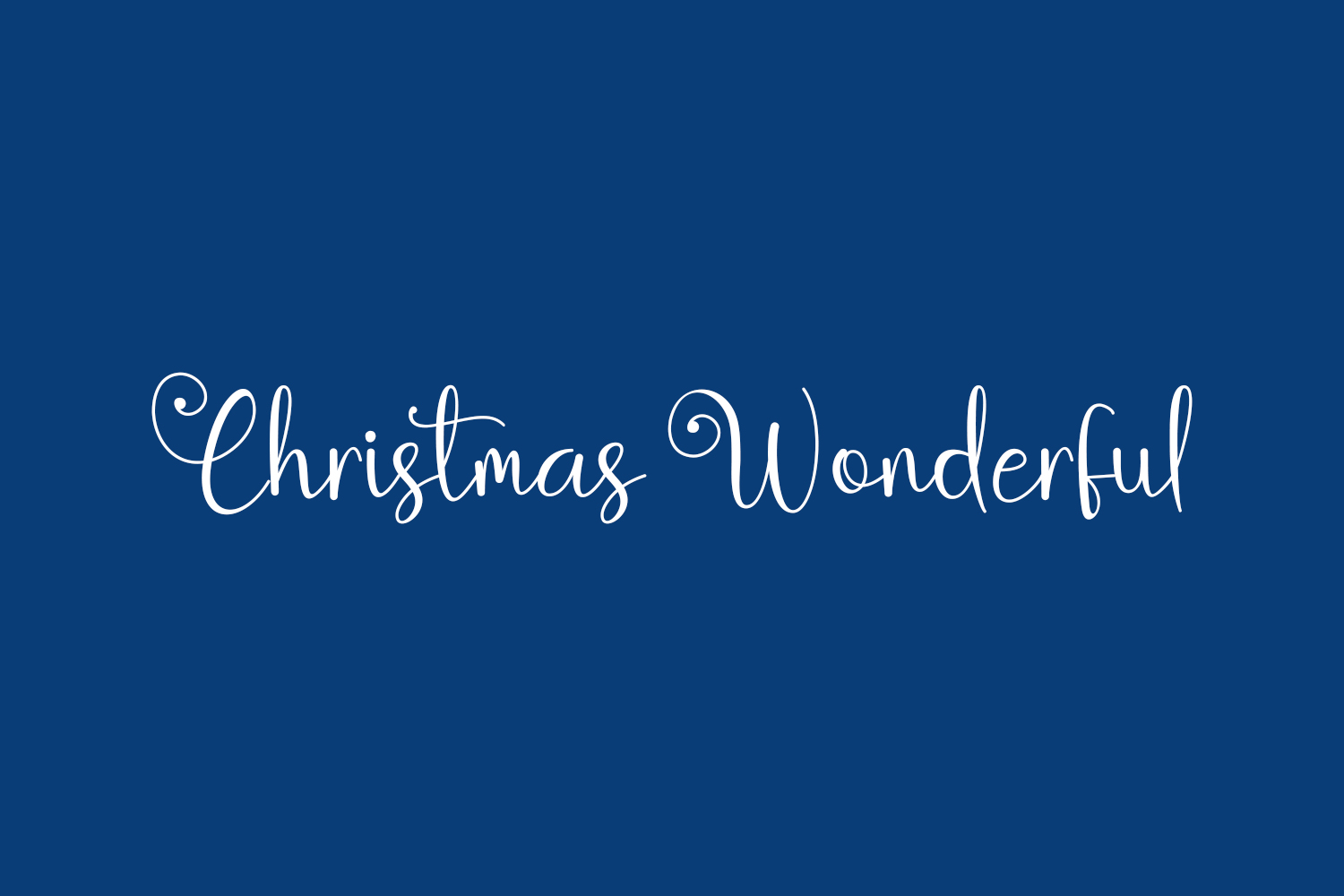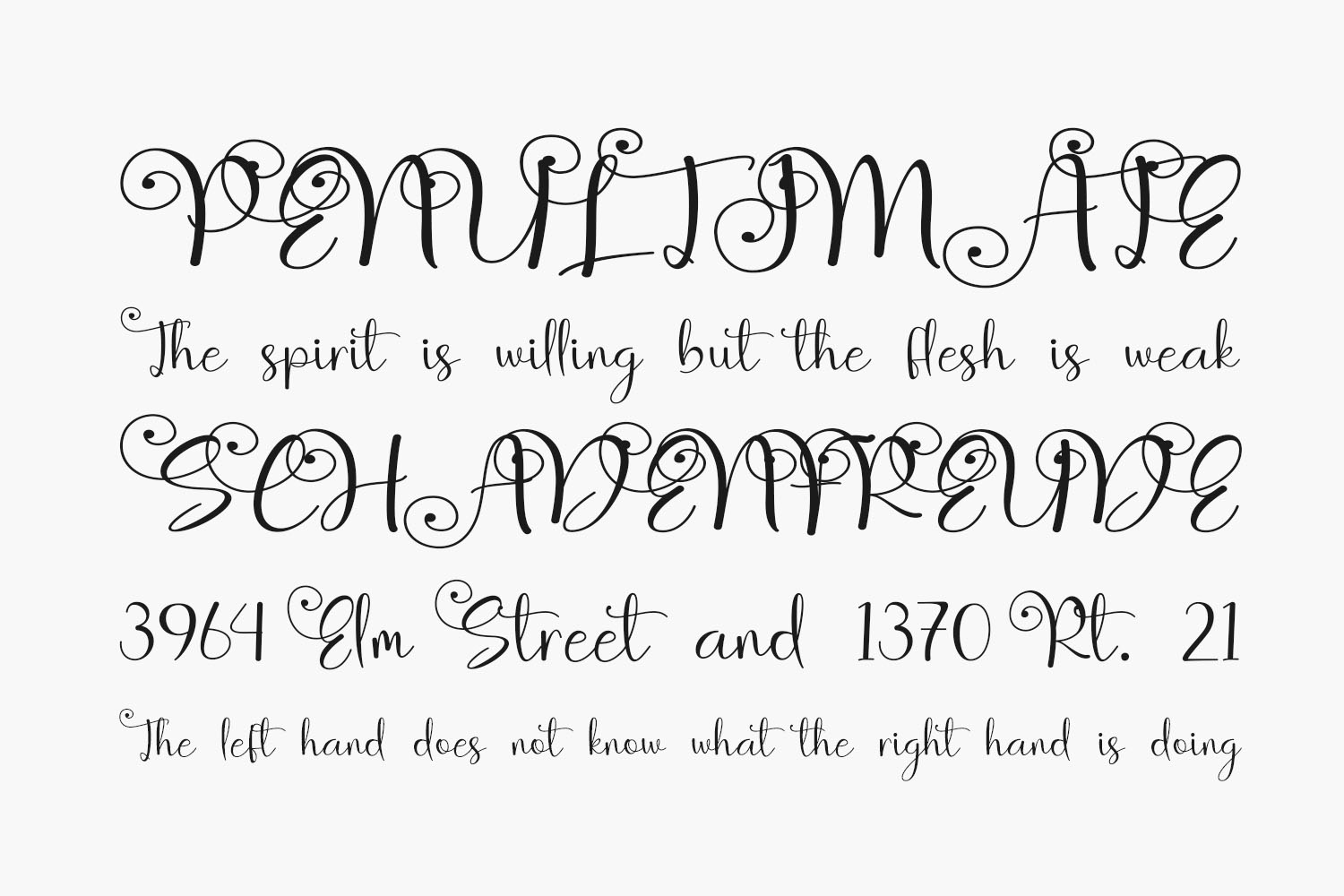
Experience the enchanting and sophisticated allure of Christmas Wonderful Free Font. This font is a perfect choice for wedding invitations, thank-you cards, quotes, greeting cards, logos, business cards, and any other design requiring a touch of elegant handwriting. Christmas Wonderful Free Font is free for personal use only. Please purchase the full version for commercial use.